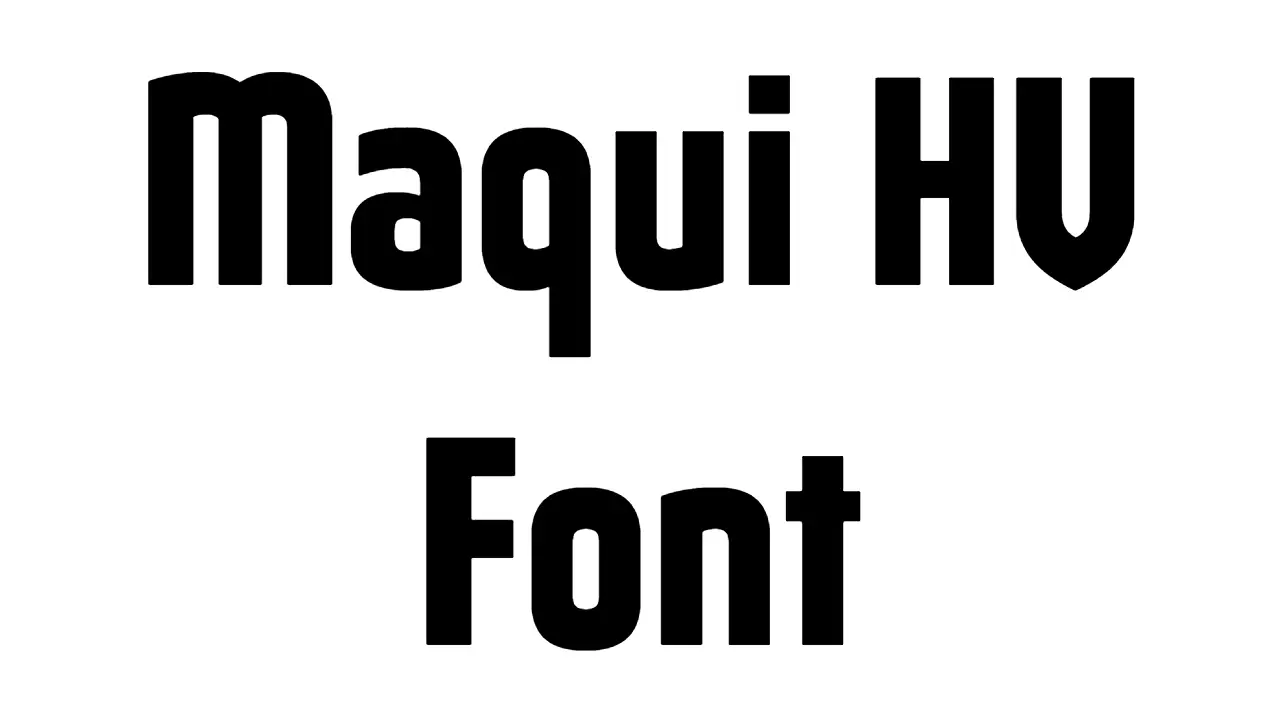
Maqui HV
Maqui HV is a sans serif font designed by Raymond Larabie and published by Typodermic Fonts Inc (2024). Its clean letters skip the little "feet" (serifs) of traditional type, so it looks modern and reads well on screens. You get two styles in one free ZIP, and the preview above lets you test each one before you download.
- Designer: Raymond Larabie
- Publisher: Typodermic Fonts Inc
- Font styles: 2 (Heavy and Heavy Italic)
What You Can Type With Maqui HV
With complete upper and lowercase letters and all ten digits, Maqui HV is ready for real wording, not just a single headline. Common punctuation such as &, !, ? and @ is included as well. It also has the accented letters you need for Spanish, French, German, Portuguese and Italian.
Where Maqui HV Works Best
Maqui HV is a natural fit for websites, app screens and clean logos. Its heavy strokes stay readable from a distance and on top of photos, which suits signs, thumbnails and posters. It works for headings and body text alike. If the download has several weights, use a heavier one for titles and a lighter one for paragraphs. Because the family has more than one style, you can mix them in a single design for headings, subheadings and highlights.
Who designed Maqui HV font?
Does Maqui HV support accented letters?
Yes. Maqui HV includes the accented letters needed for Spanish, French, German, Portuguese and Italian, so it works for more than just English.